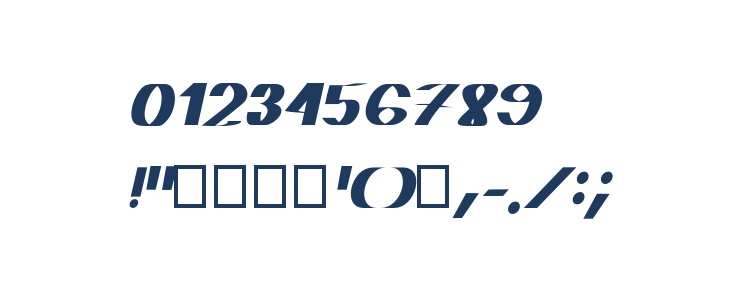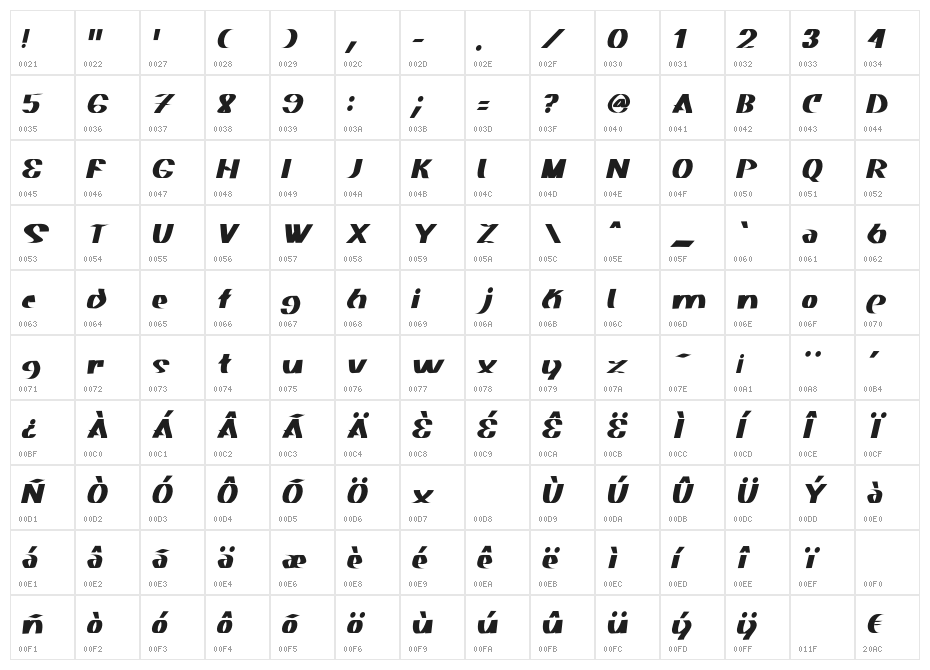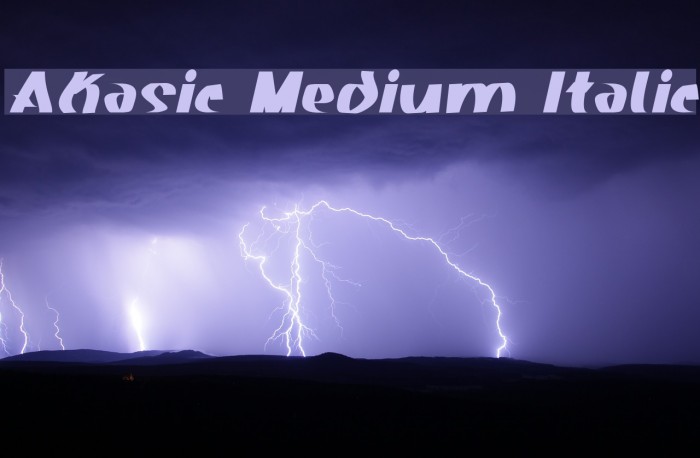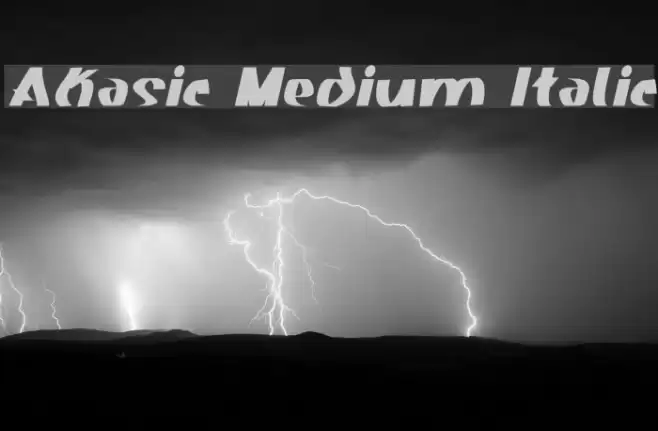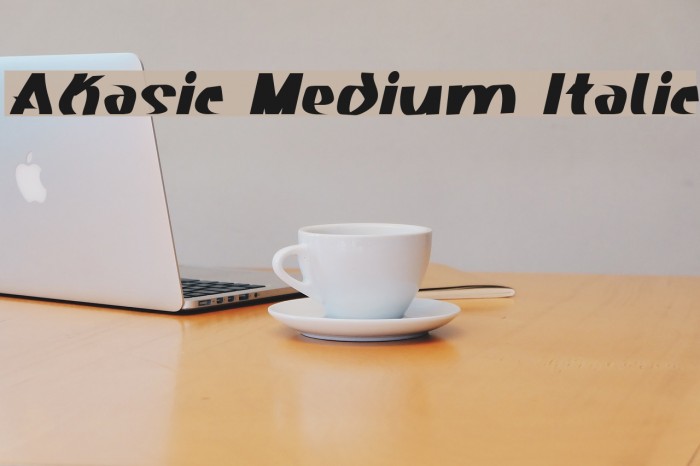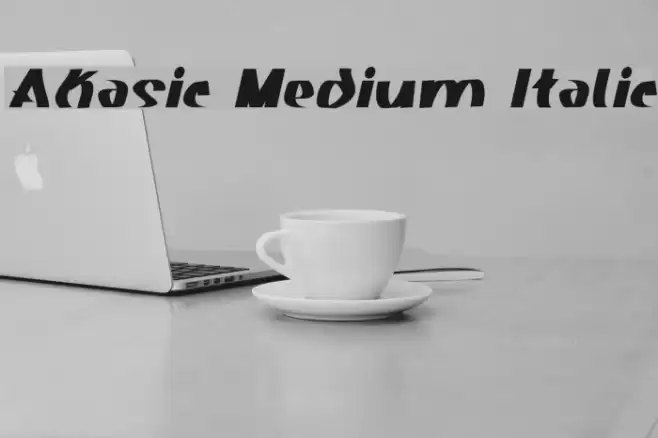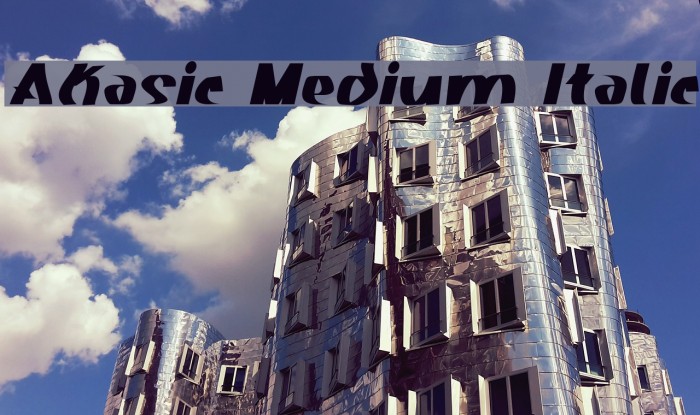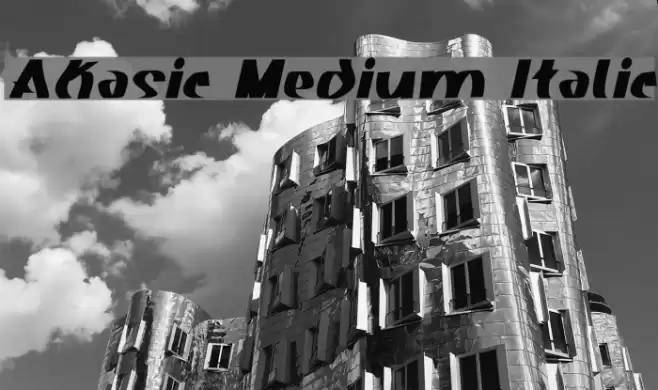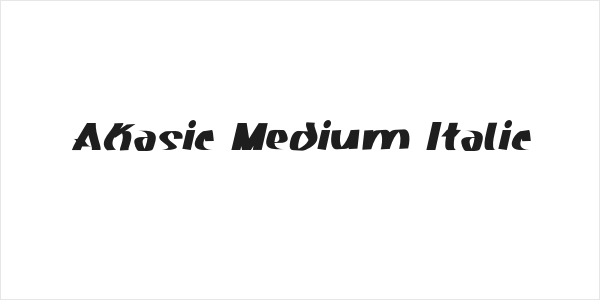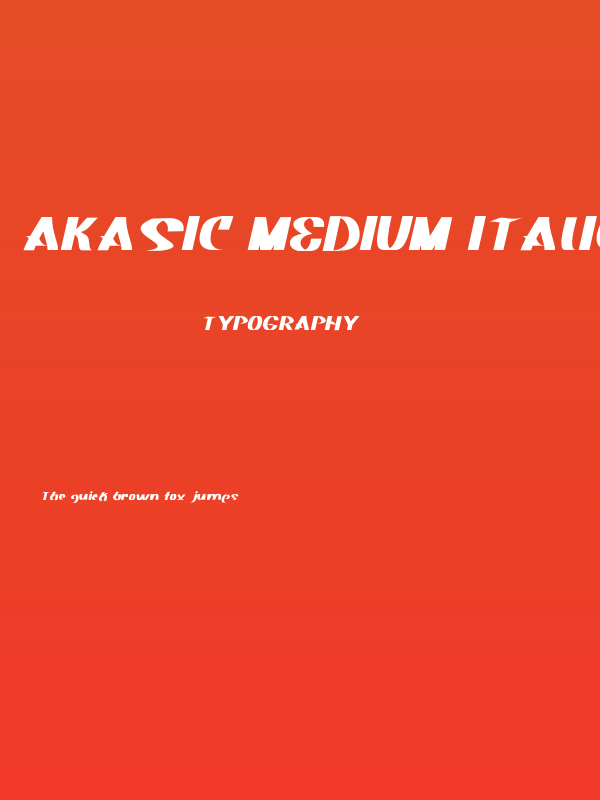
Akasic Medium Italic Font
Akasic Medium Italic Description
This font exhibits a dynamic and modern style with a distinct italic slant, giving it a sense of motion and energy. The characters are bold and have a unique, angular design that sets them apart from traditional typefaces. The uppercase and lowercase letters maintain a consistent style, with sharp edges and a slight forward tilt. Numbers and special characters follow the same design principles, ensuring uniformity across all glyphs. The font's boldness and angularity make it suitable for attention-grabbing headlines or logos that require a contemporary and edgy look.
| Proposed Projects | Ideal for modern branding, dynamic posters, edgy magazine covers, and innovative product packaging. |